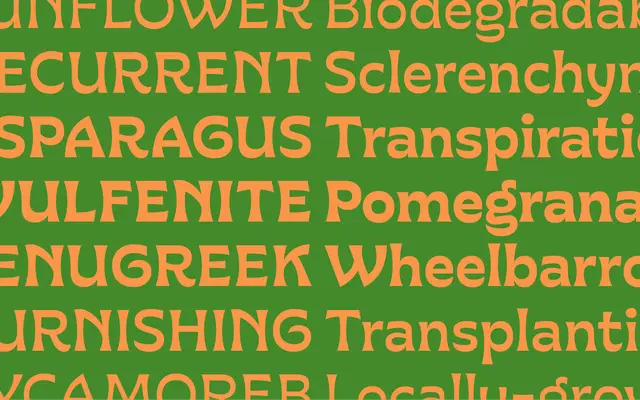
Gardein
A humanist serif with concave stems and flared terminals, drawn for organic branding, packaging and headline work.
Designed by Christopher Caldwell and Troy Leinster, it takes inspiration from the book cover work of Arts and Crafts designer Sarah W. Whitman, translating that influence into a five-weight family with extra weight concentrated at the x-height and baseline. The result is a type with distinct surface texture suited to eco-friendly brands, book covers, wayfinding and environmental graphics. Available as a variable font across the full Light-to-Extra Bold range.
Built on a Roman foundation with concave stems, flared terminals and Arts and Crafts-influenced quirks; the foundry explicitly classes it as a humanist serif optimised for display and headline use.